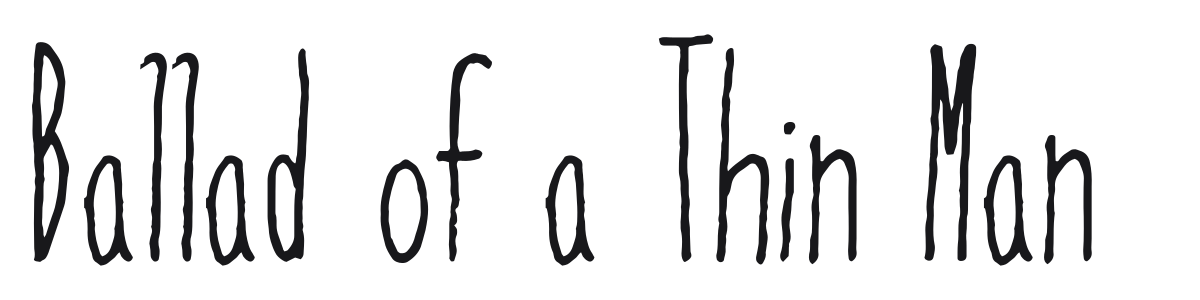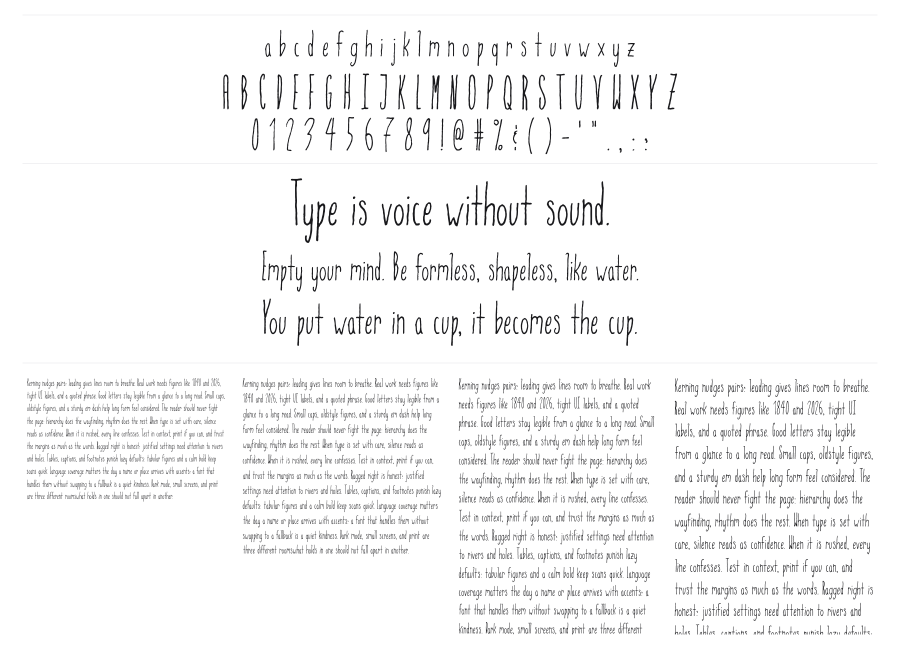
Ballad of a Thin Man
Ballad of a Thin Man is a spindly upright handwritten font with tall, condensed proportions and a natural hand-drawn quality. Irregular stroke edges and slightly wobbly lines give it an authentic casual feel, like notes written quickly in a sketchbook. It works well for music, indie publishing, and any project that needs a personal, lo-fi touch.